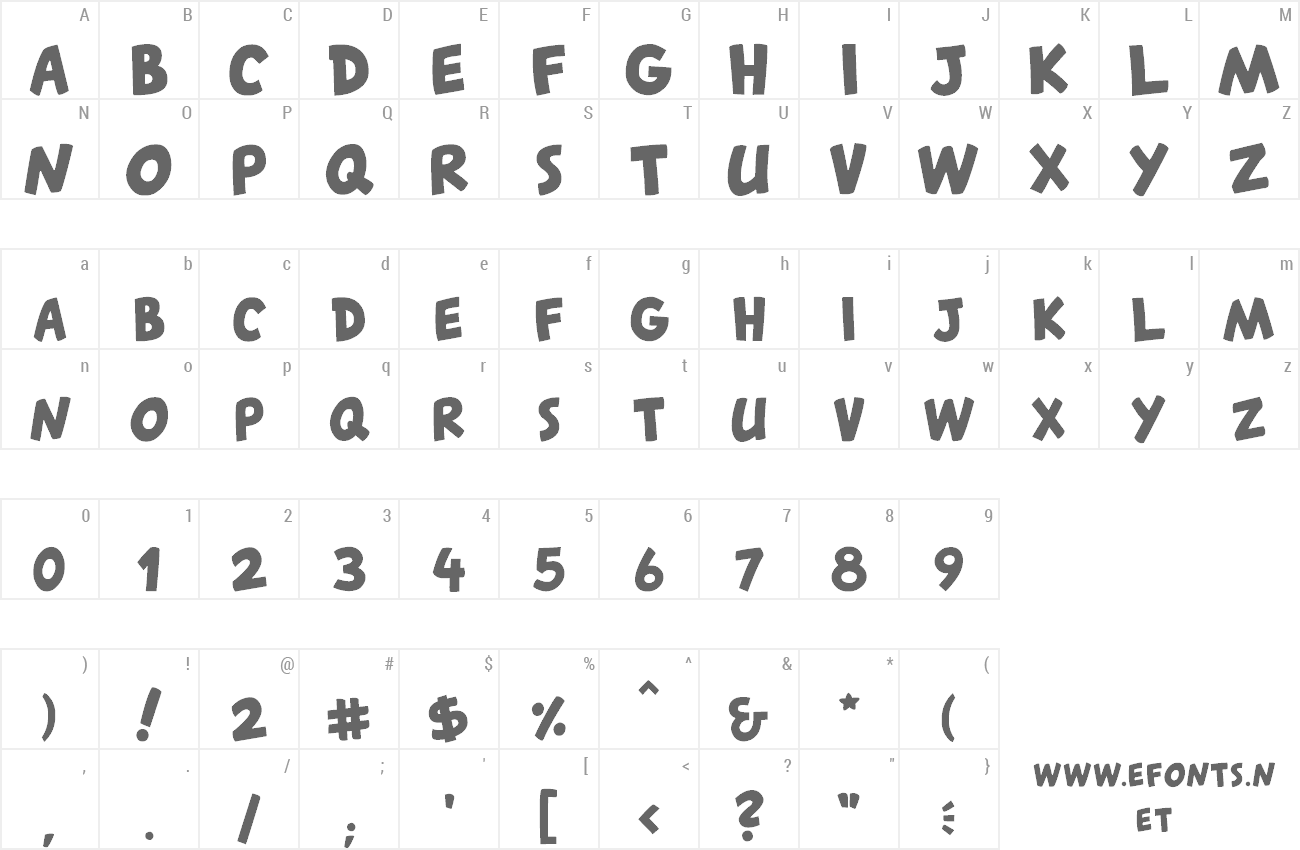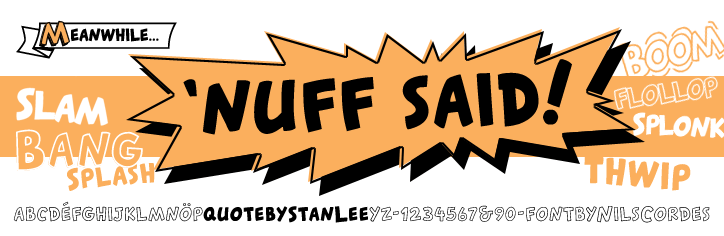
Preview and download Canted FX Font. Created by Nils Cordes in Fancy Comic styles with 100% Free license.
A layered comic font for sound effects and action. Combine regular and bold for some colorful Splash, Bang and Thwip. Sister font of Canted Comic. Free for personal and commercial use; just credit the designer. And I'm always happy to see images of the font in use, so do not hesitate to contact me. |